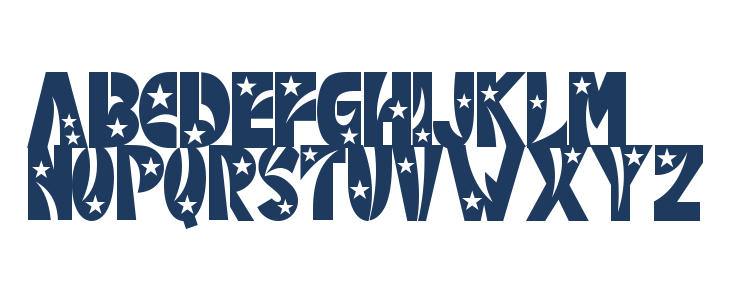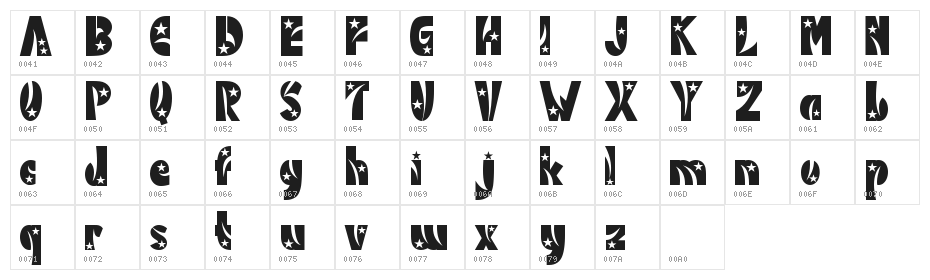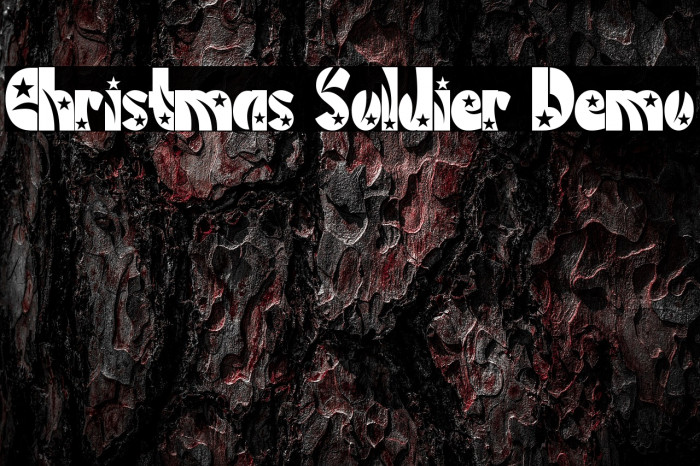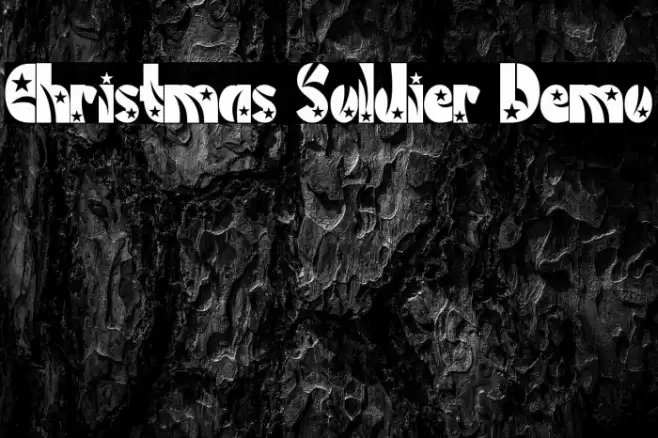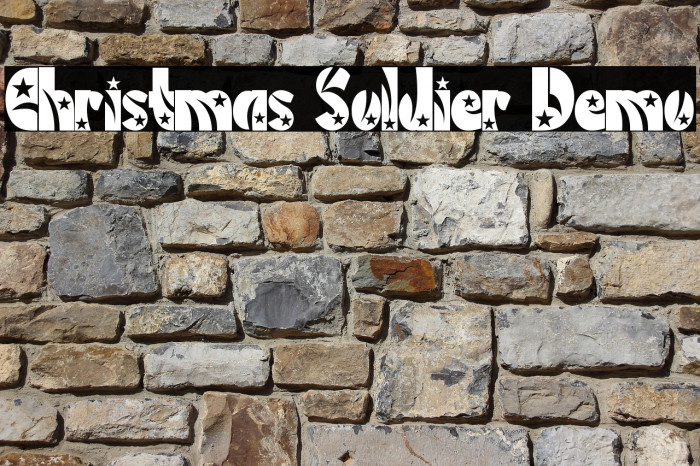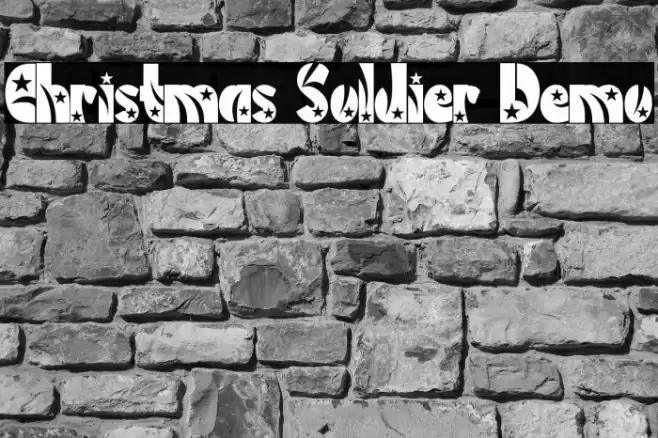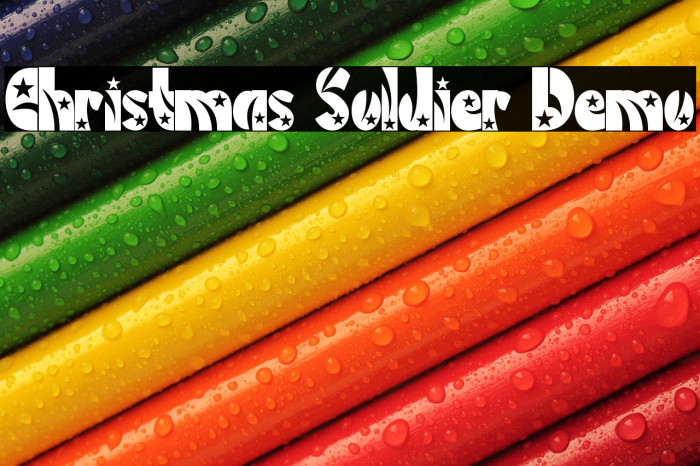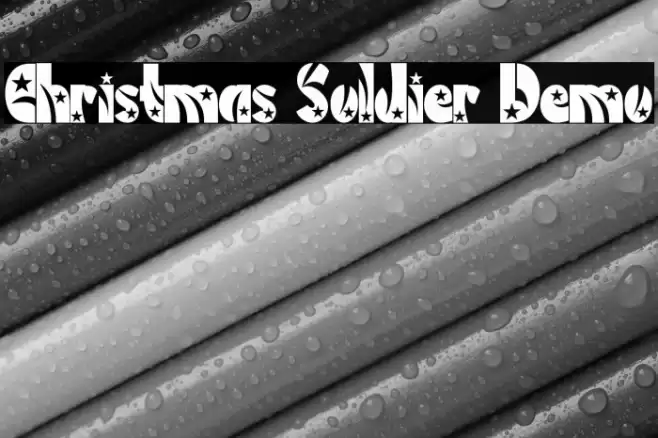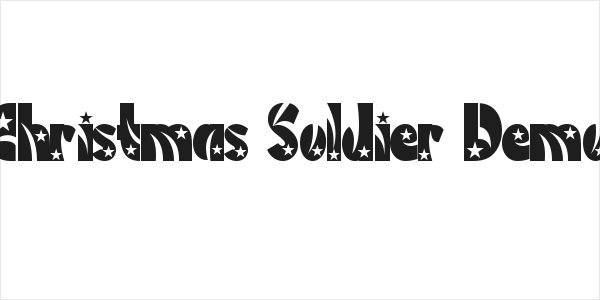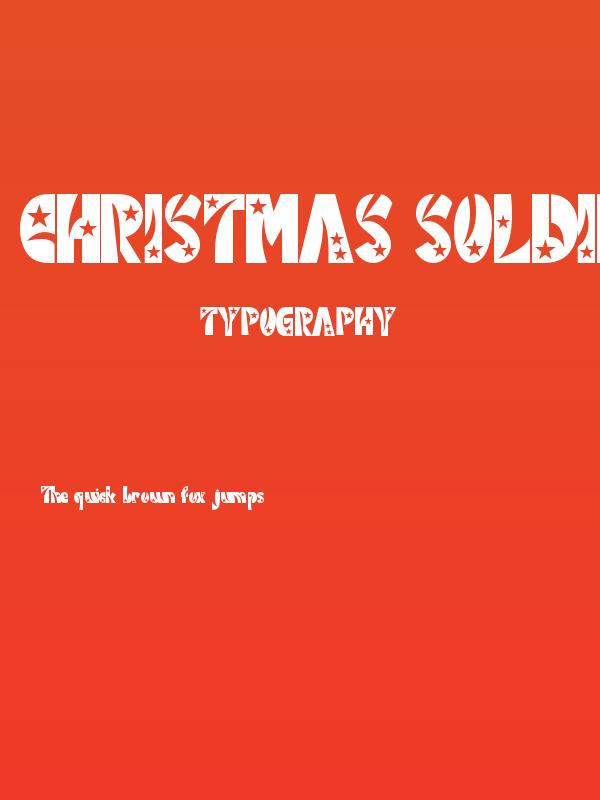
Christmas Soldier Demo Font
Christmas Soldier Demo Description
A bold, decorative display font featuring geometric letterforms with star-shaped cutouts, evoking a festive and playful atmosphere. The characters are wide and blocky, with consistent stroke thickness and high visual contrast due to the star motifs.
| Overall Style | Decorative, Festive, Playful |
| Use Case | Headlines, Posters, Logos, Event Announcements |
| Proposed Projects | Holiday cards, event posters, party invitations, children's book covers, seasonal branding. |